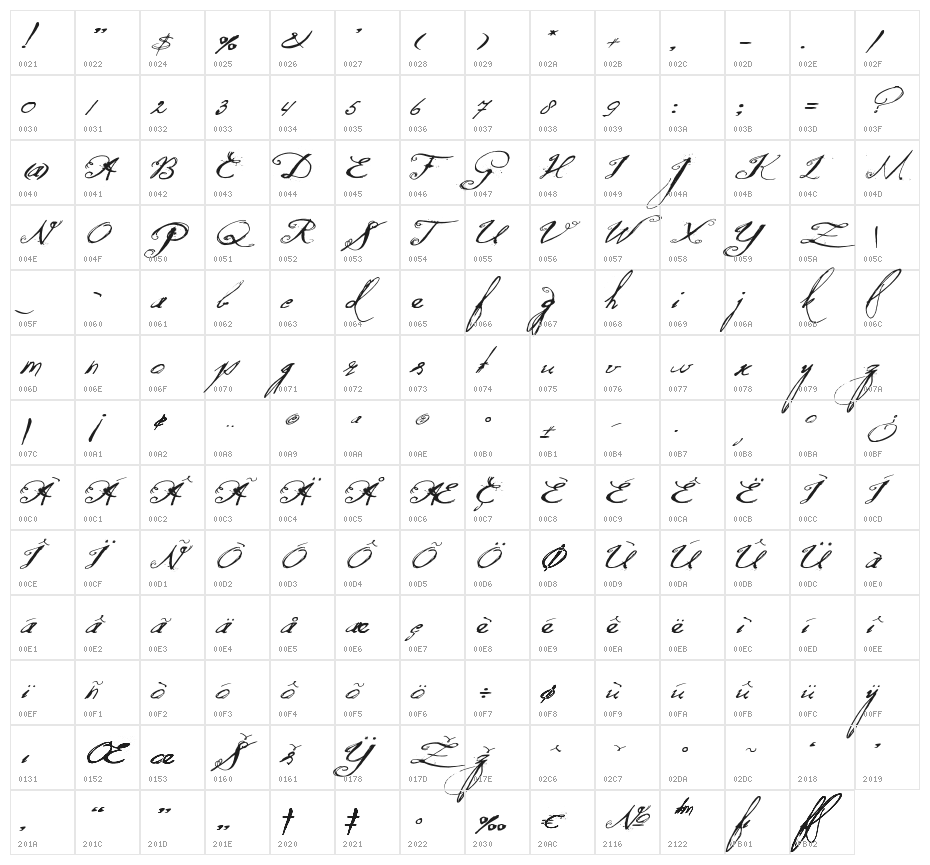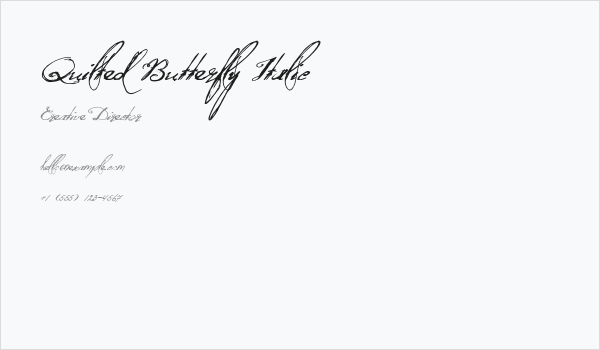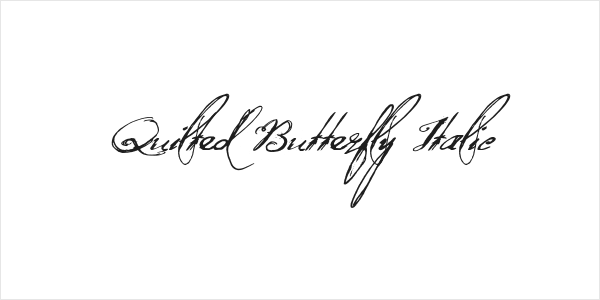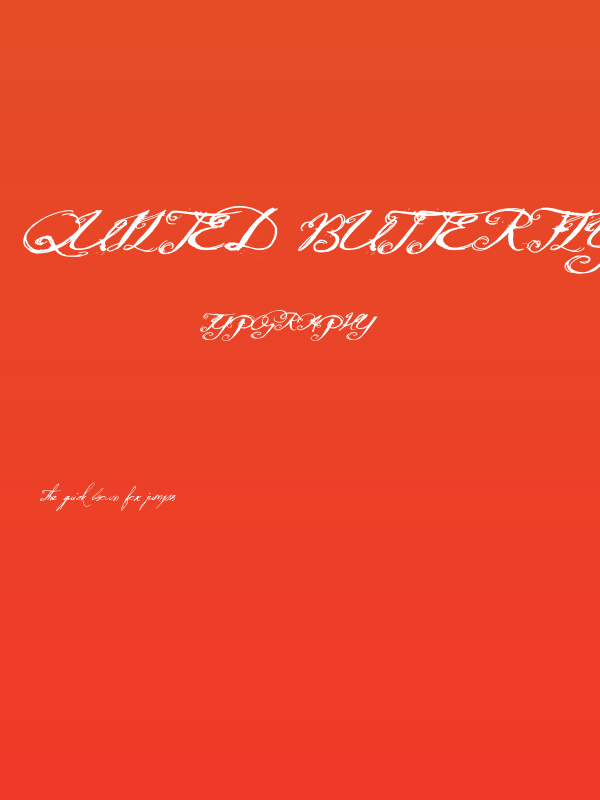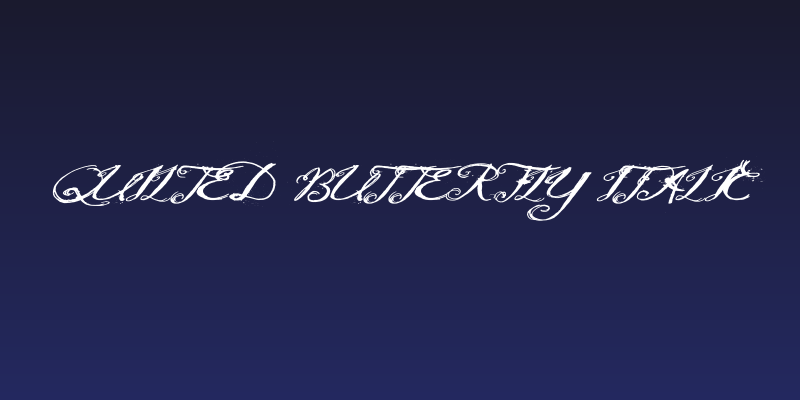
Quilted Butterfly Italic Font
Quilted Butterfly Italic Description
This font exhibits an elegant and intricate script style, characterized by its flowing, cursive letterforms. The uppercase letters are adorned with decorative swirls and flourishes, adding a touch of sophistication and artistry. The lowercase letters maintain a consistent cursive flow, with some letters featuring loops and extended tails. The numbers and special characters are designed to match the ornate style of the alphabet, ensuring a cohesive appearance. This font's overall aesthetic is reminiscent of classic calligraphy, making it suitable for projects that require a touch of elegance and refinement.
Overall StyleClassic
Use CaseLogos, Invitations, Artistic projects
Proposed ProjectsIdeal for wedding invitations, elegant branding, greeting cards, and artistic projects.